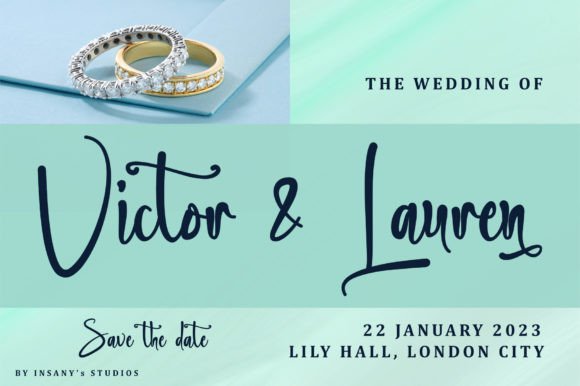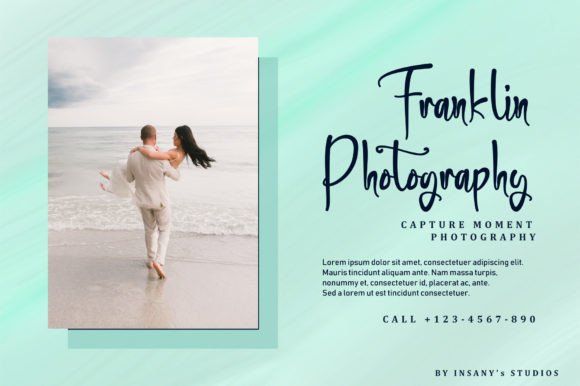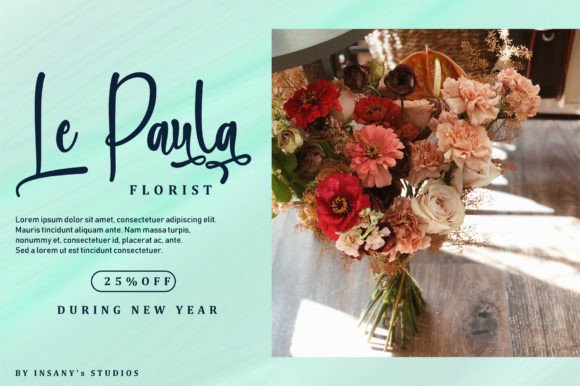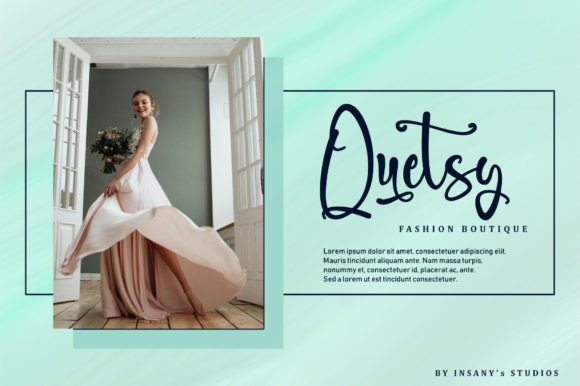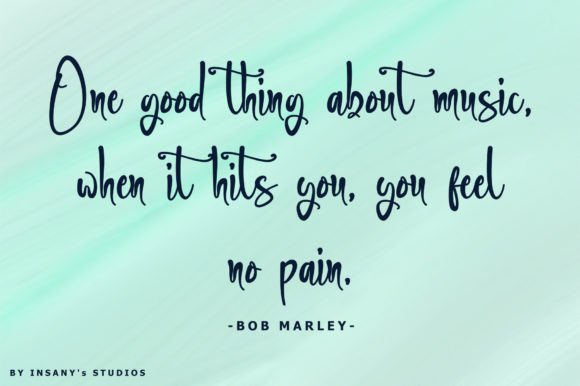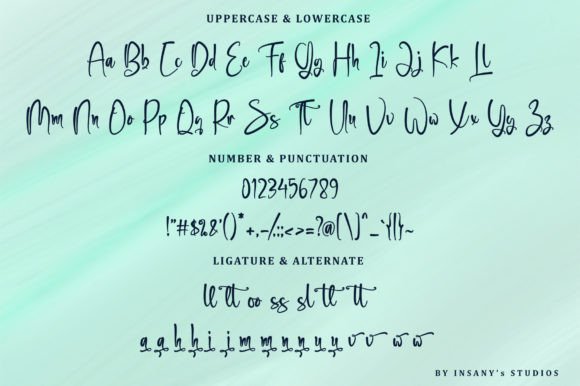
Dentlichs Font: The Sweet Handwritten Touch for Your Designs
Are you looking for a font that adds a sweet and personal touch to your designs? Look no further than Dentlichs Font! This beautiful handwritten font is perfect for a variety of design projects, from wedding invitation cards to business cards, and everything in between.
What Makes Dentlichs Font So Special?
Dentlichs Font is a sweet and elegant handwritten font that is sure to capture the hearts of designers and crafters alike. Its unique and charming characters make it perfect for adding a personal touch to any design project. Whether you’re creating wedding invitations, greeting cards, or advertising materials, Dentlichs Font is sure to make your designs stand out.
The Perfect Font for Wedding Invitations and More
Wedding invitation cards are a great way to showcase the beauty of Dentlichs Font. The font’s elegant and cursive style makes it perfect for formal and informal wedding invitations alike. But Dentlichs Font isn’t just limited to wedding invitations. It’s also stunning on:
- Advertising materials: Add a touch of elegance and sophistication to your ads with Dentlichs Font.
- Thank you cards: Show your appreciation with beautifully designed thank you cards featuring Dentlichs Font.
- Greeting cards: Create stunning greeting cards for any occasion with Dentlichs Font.
- Business cards: Add a personal touch to your business cards and make a lasting impression with Dentlichs Font.
Why Designers and Crafters Love Dentlichs Font
So, what makes Dentlichs Font so loved by designers and crafters? Here are just a few reasons:
- Perfect Characters: The characters in Dentlichs Font are carefully crafted to be unique and elegant, making it perfect for a variety of design projects.
- Kerning: The kerning of Dentlichs Font is precise and well-balanced, ensuring that your text looks beautiful and professional.
- Ligature and Alternates: Dentlichs Font also features ligatures and alternates, giving you even more flexibility and creativity in your designs.
Tips for Using Dentlichs Font in Your Designs
Here are a few tips for getting the most out of Dentlichs Font in your designs:
- Pair it with other fonts: Dentlichs Font pairs well with other fonts, so don’t be afraid to experiment and find the perfect combination for your design.
- Use it for headings and titles: Dentlichs Font is perfect for headings and titles, adding a touch of elegance and sophistication to your designs.
- Experiment with colors and textures: Dentlichs Font looks great in a variety of colors and textures, so don’t be afraid to get creative and try new things.
Dentlichs Font is a beautiful and versatile handwritten font that is perfect for a variety of design projects. Its unique and charming characters, precise kerning, and ligatures and alternates make it a must-have for designers and crafters. Whether you’re creating wedding invitations, advertising materials, or business cards, Dentlichs Font is sure to add a sweet and personal touch to your designs.